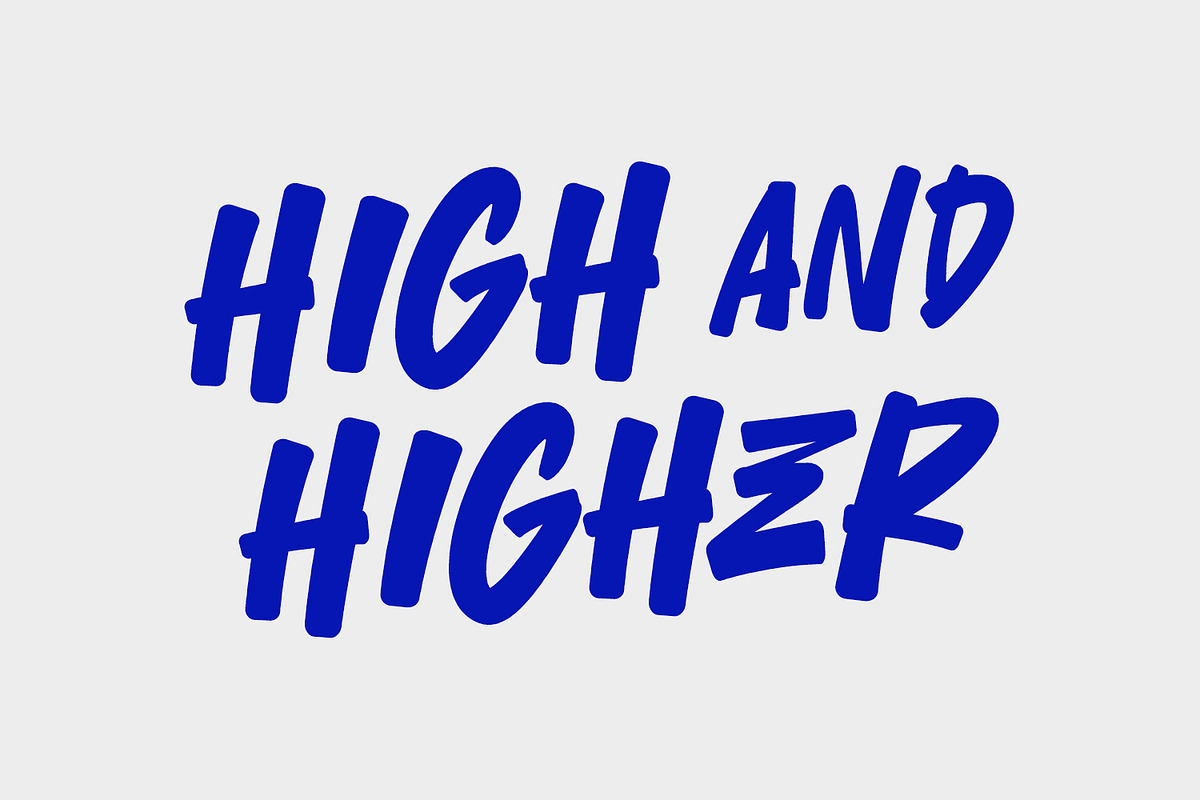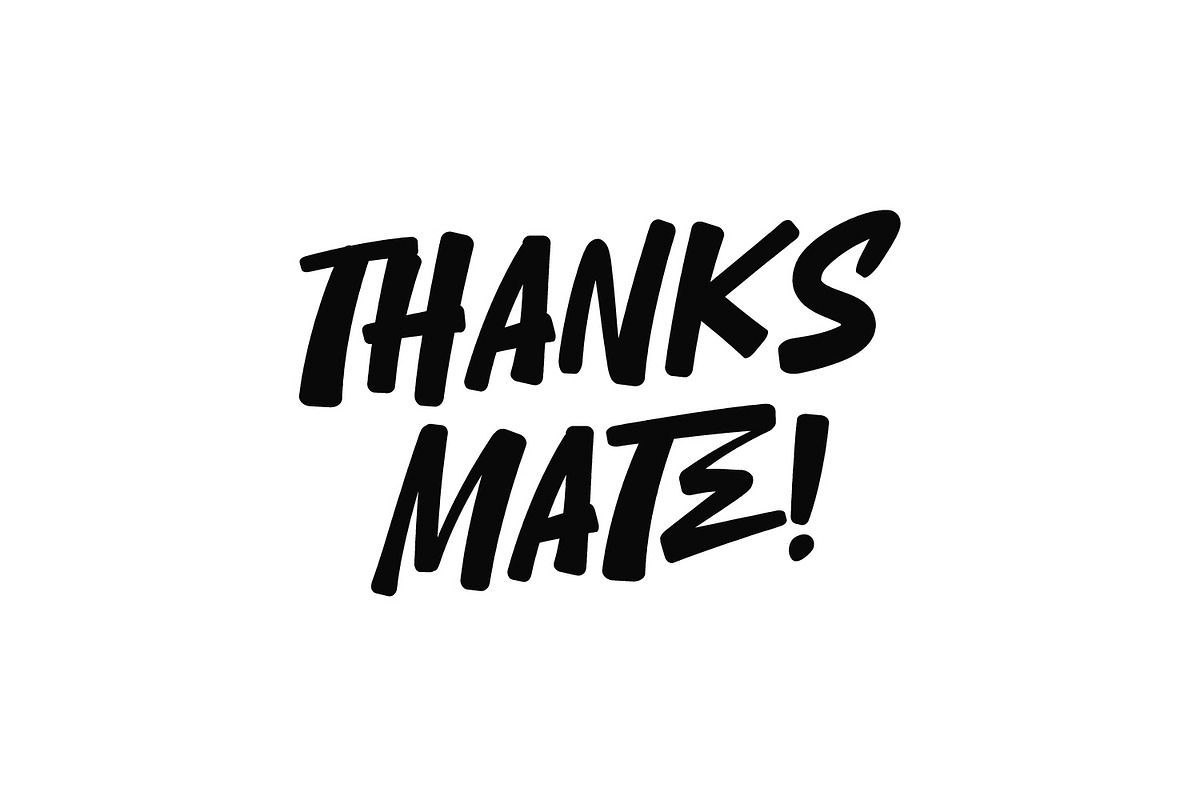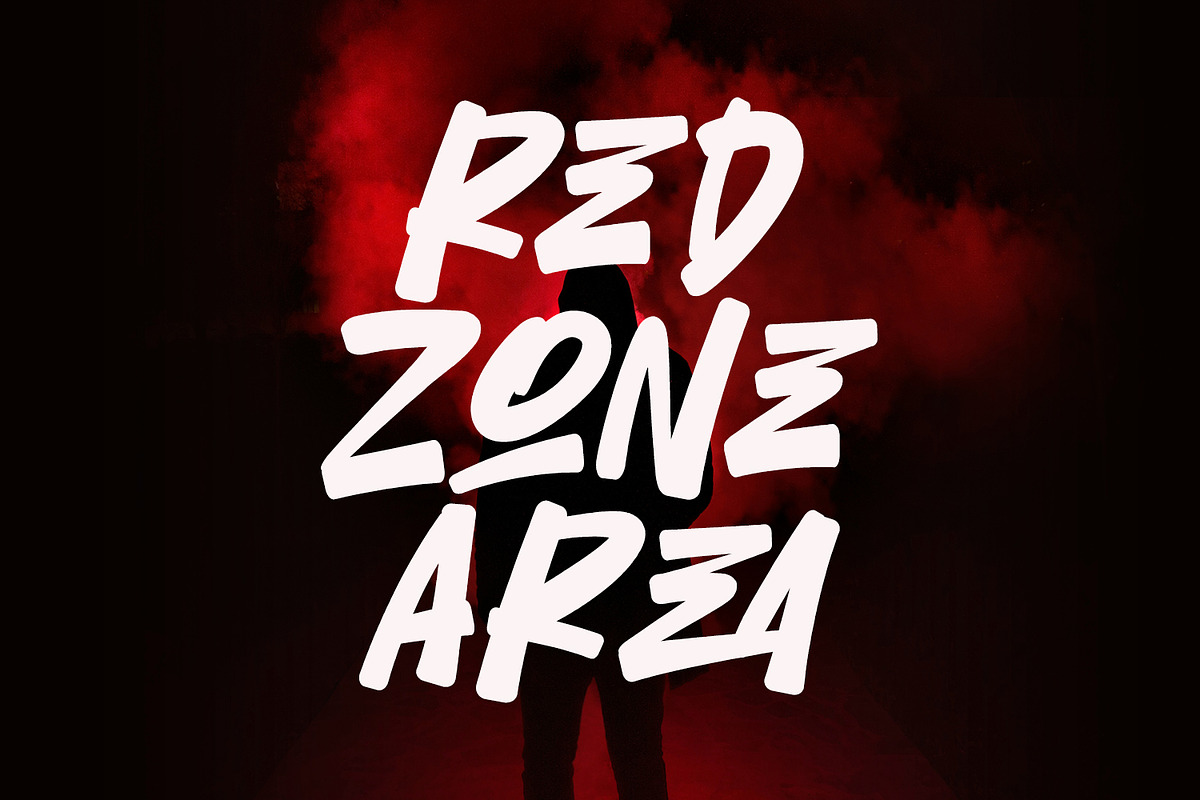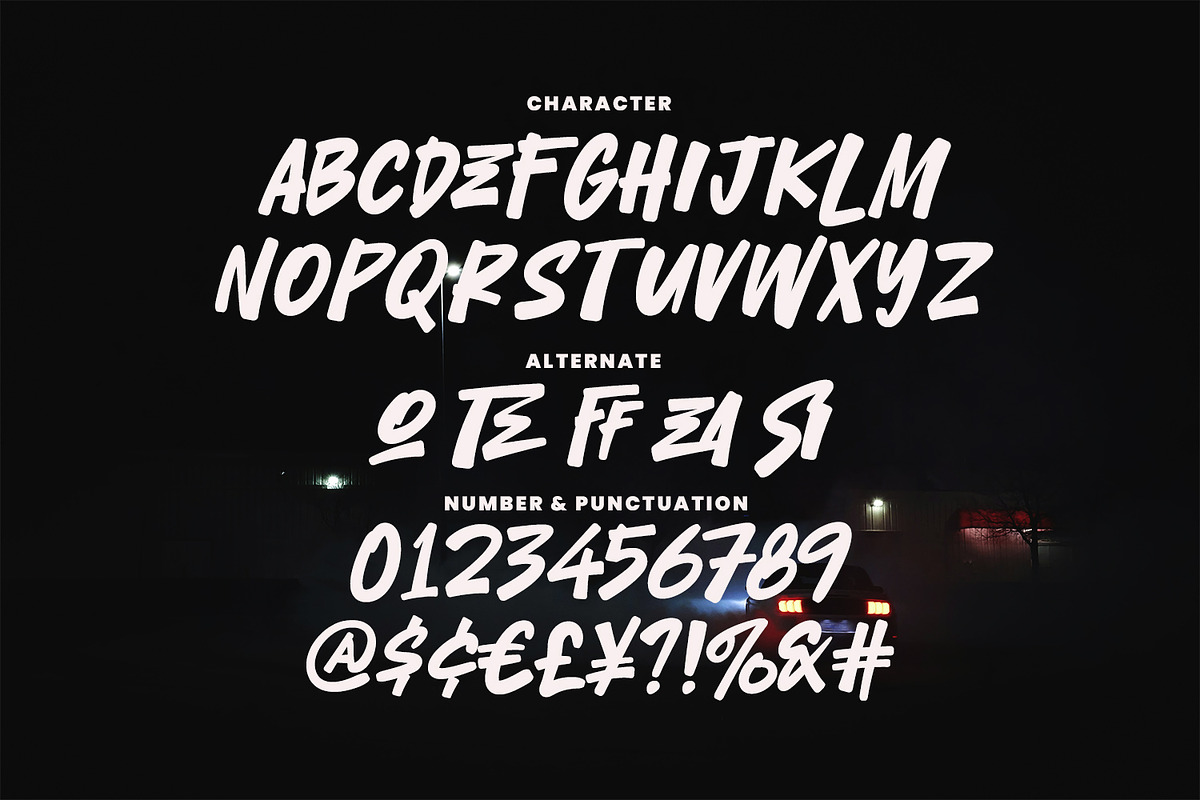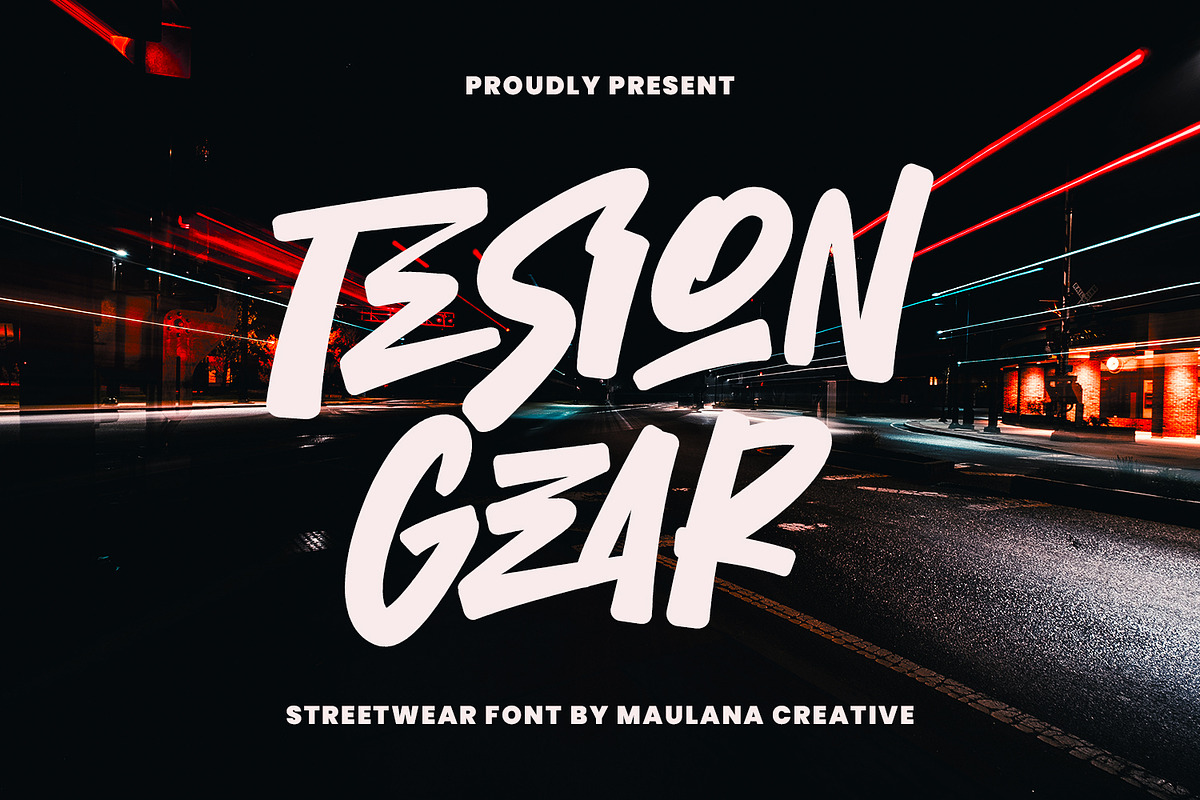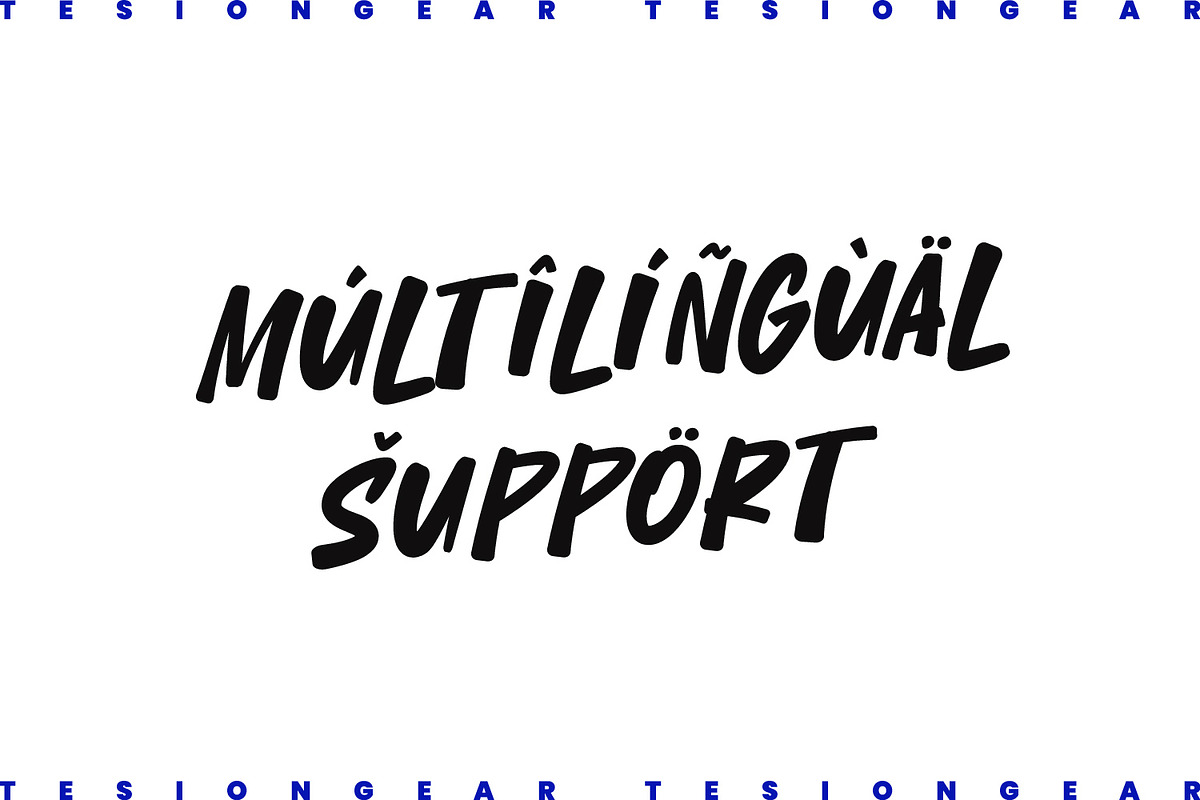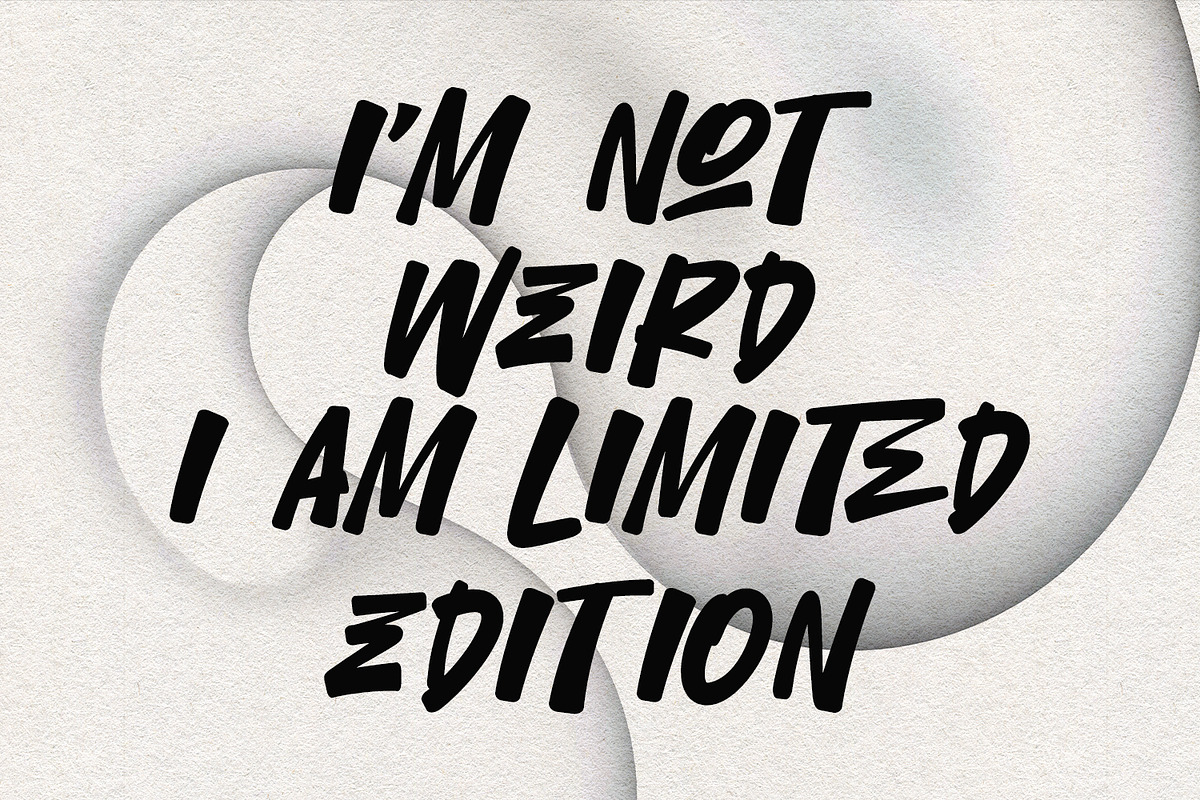
Tesion Gear Bold Streetwear Marker
Unleash the raw energy of the streets with Tesion Gear!
Tesion Gear is a bold, high-impact marker font designed for those who want their designs to speak loud and clear. Inspired by urban graffiti and contemporary streetwear culture, this font features thick, expressive strokes that give your work an authentic, hand-drawn feel.
Whether you're designing edgy t-shirt graphics, striking posters, modern logos, or social media content, Tesion Gear provides the perfect balance of grit and readability. It comes packed with unique alternates and multilingual support, allowing you to create truly custom typography for any project.
- Uppercase & Lowercase characters
- Stylistic Alternates & Ligatures for a natural look